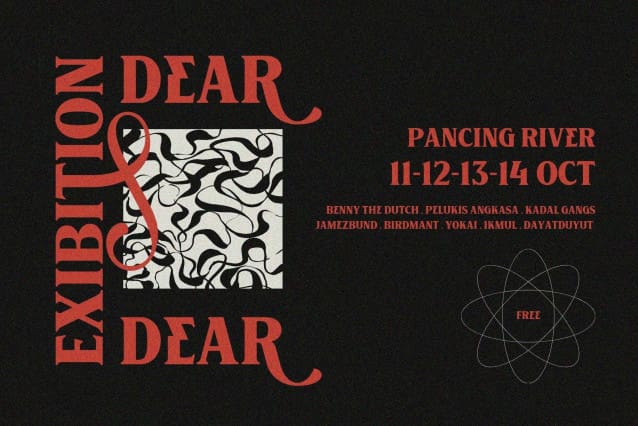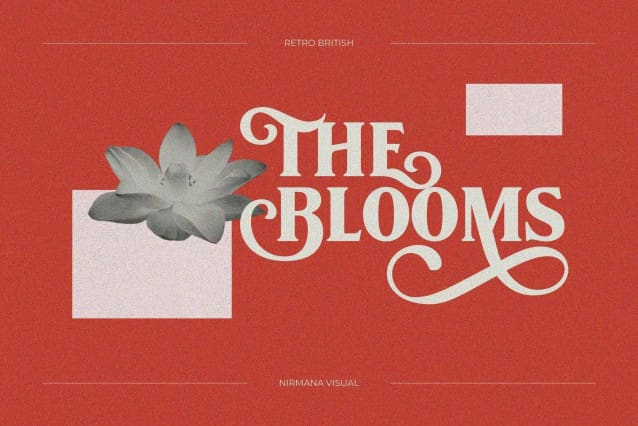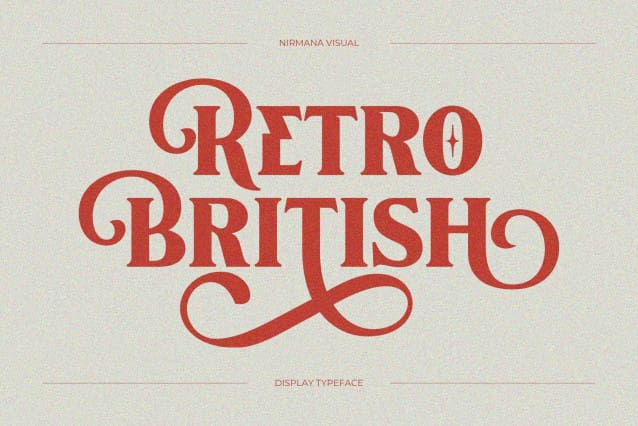
Retro British Font
Retro British Font offers beautiful typographic harmony for a diversity of design projects, including logos & branding, social media posts, advertisements & product designs.